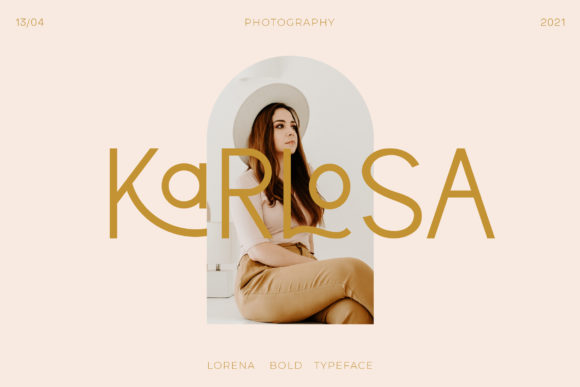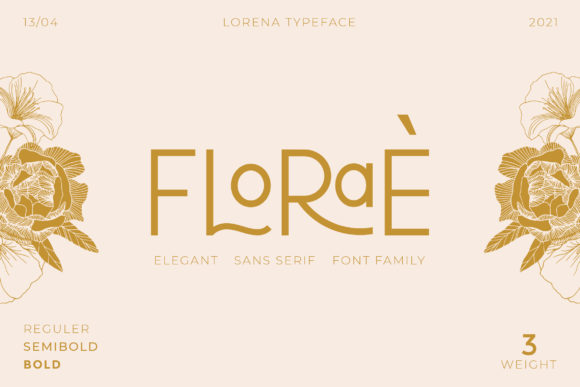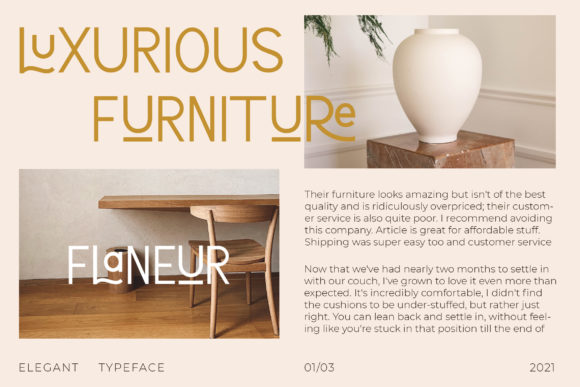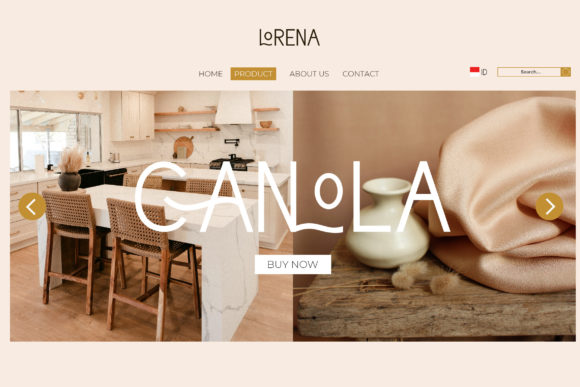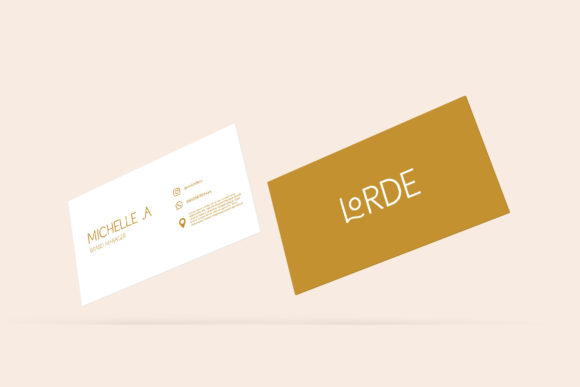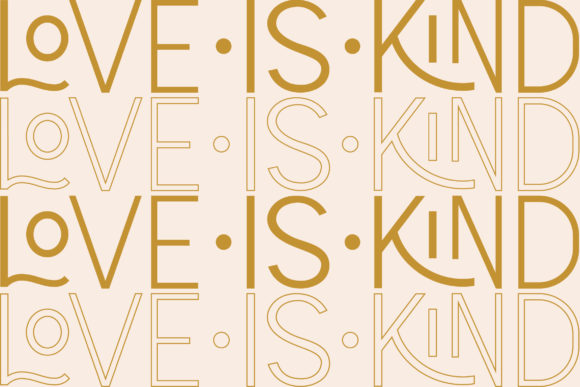
Introduction to Lorena Font Font
Fonts play a crucial role in design, and the Lorena Font font is a typeface that brings both character and versatility to any project. Whether you’re working on a branding project, a website, or a print design, the Lorena Font font offers a unique style that can elevate your work.
Lorena is an elegant and distinct sans serif font.
This font is PUA encoded which means you can access all of the glyphs and swashes with ease Fall in love with its incredibly versatile style and use it to create spectacular designs.
The Lorena Font font is more than just a typeface – it’s a design tool that helps you communicate your message with style and clarity. Its unique character set and versatile design make it suitable for a wide range of applications, from elegant invitations to bold headlines.
With its carefully crafted letterforms and balanced proportions, the Lorena Font font ensures readability and visual appeal across all mediums.
The Lorena Font font stands out with its unique design, exceptional readability, and versatility across various design applications.